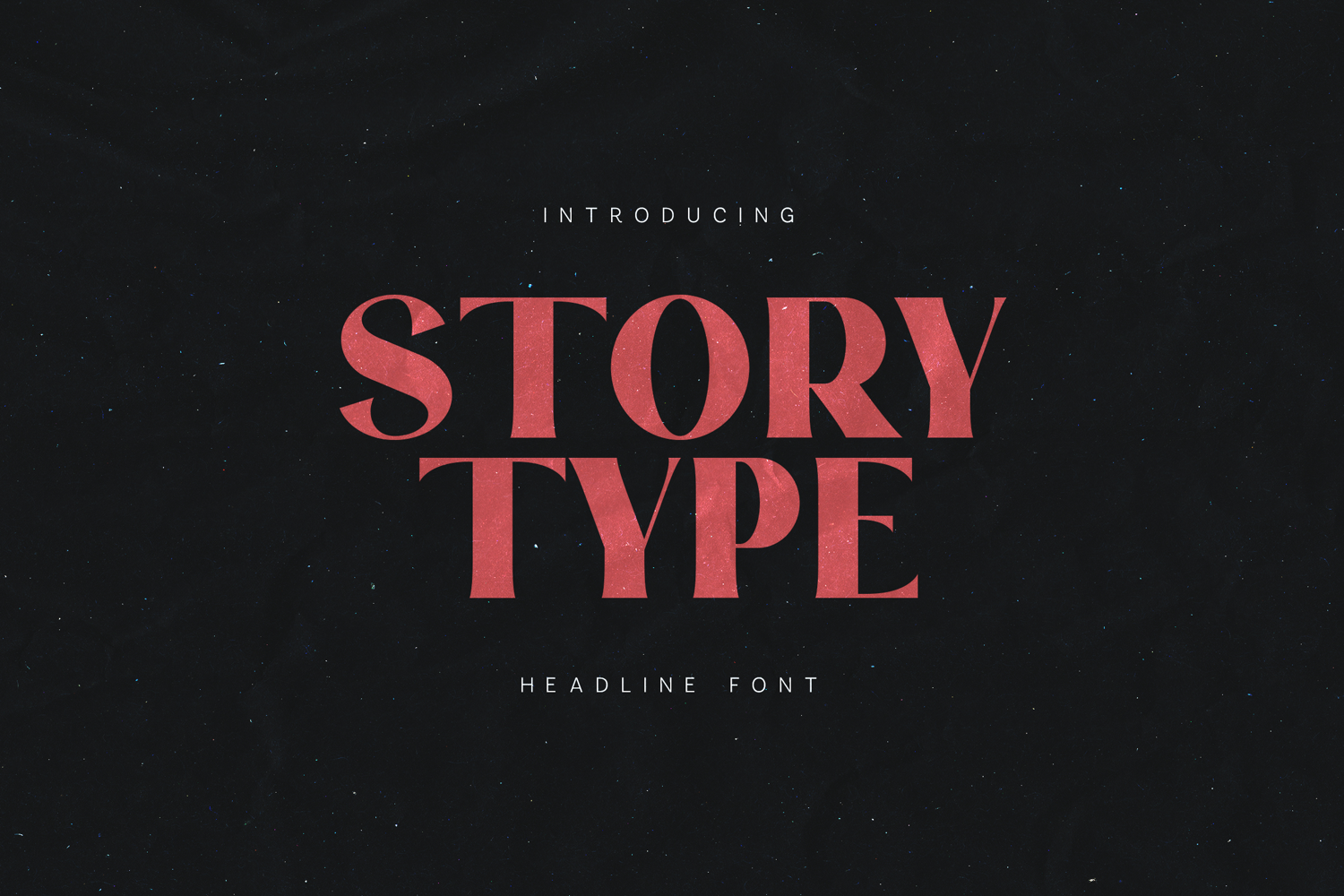
Story Type Bold Headline Serif Font
Story Type is a bold headline serif font designed to tell stories with strength, warmth, and timeless character. Featuring confident proportions, classic serif construction, and a subtle textured finish, this typeface delivers a powerful editorial presence while remaining approachable and human.
Created for expressive headlines, Story Type is ideal for magazines, posters, book covers, branding, campaigns, film titles, quotes, and impactful visual storytelling. Its sturdy letterforms and refined contrast make it highly readable at large sizes, while the organic texture adds depth and emotion to every word.
Story Type is built for designers who want typography that feels bold yet thoughtful—where structure meets narrative and every headline carries meaning.